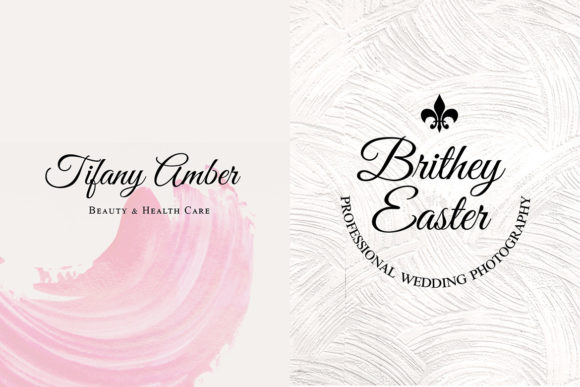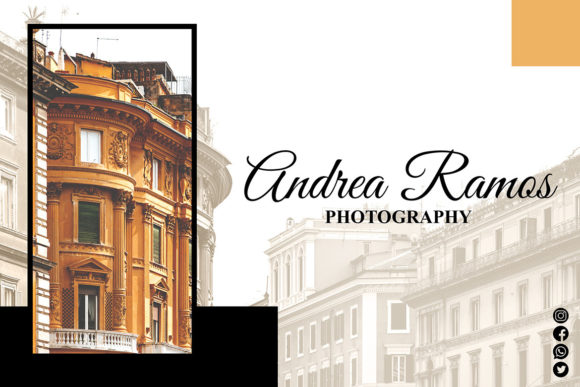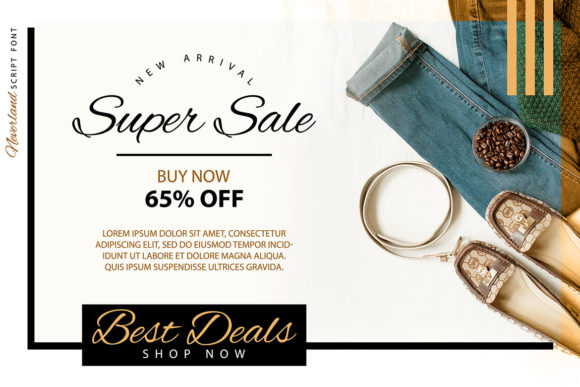
Neverland Font – Free Download
Introduction to Neverland Font
Neverland is a relaxed handwritten font.
| 👤 Author | FannanStudio |
It looks lovely on wedding invitations, thank you cards, quotes, greeting cards, logos, business cards and every other design which needs a customized touch Neverland is PUA encoded which means you can access all of the glyphs and swashes with ease.
Key Features of Neverland Font
Why Choose Neverland Font?
Neverland Font offers exceptional quality and versatility, making it a valuable addition to your design toolkit. Whether you’re creating for personal projects or commercial use, Neverland Font delivers professional results.